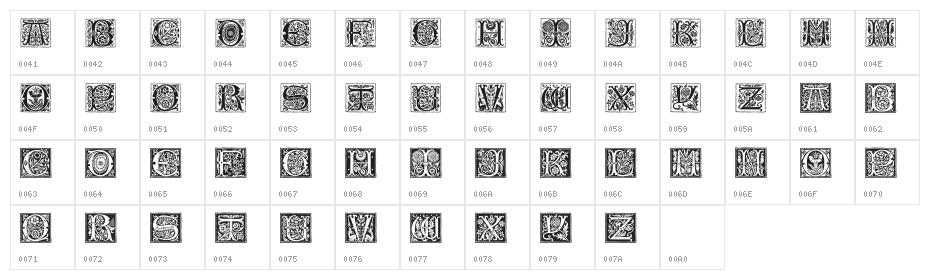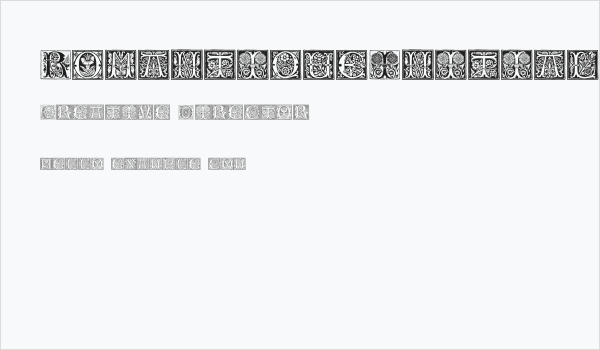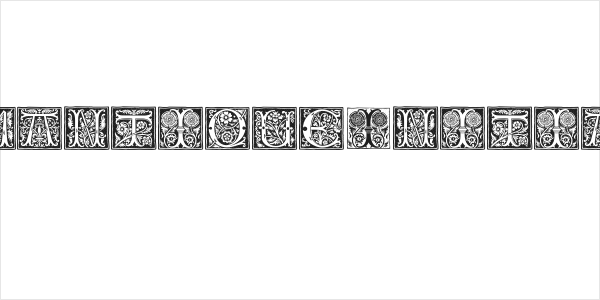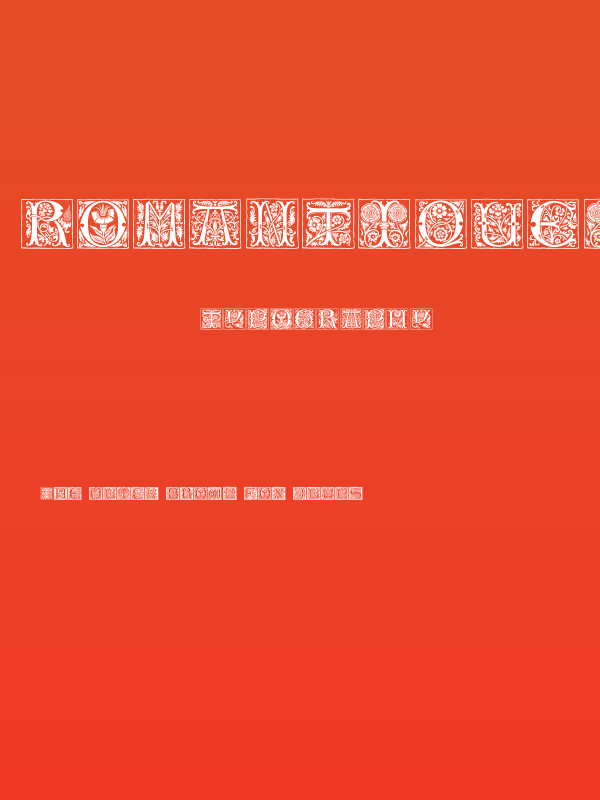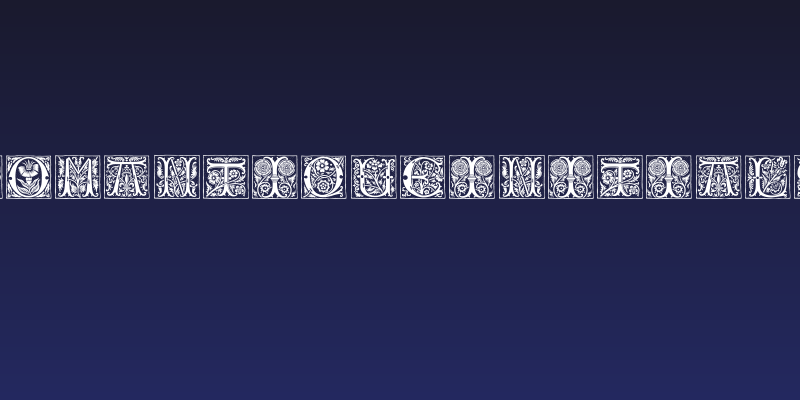
RomantiqueInitials Font
RomantiqueInitials Description
This font is a highly decorative and ornate typeface, featuring intricate floral and vine motifs within each letter. Each character is enclosed in a square, giving it a framed appearance that enhances its decorative quality. The design is reminiscent of illuminated manuscripts, with a strong emphasis on artistic embellishment. The letters are bold and stand out due to their detailed patterns, making them suitable for projects that require a touch of elegance and historical charm. The font's intricate design suggests a vintage or classical style, perfect for creating a sense of sophistication and luxury.
| Use Case | Logos, Headlines, Decorative purposes |
| Proposed Projects | Ideal for wedding invitations, luxury branding, historical themed projects, and decorative headings. |